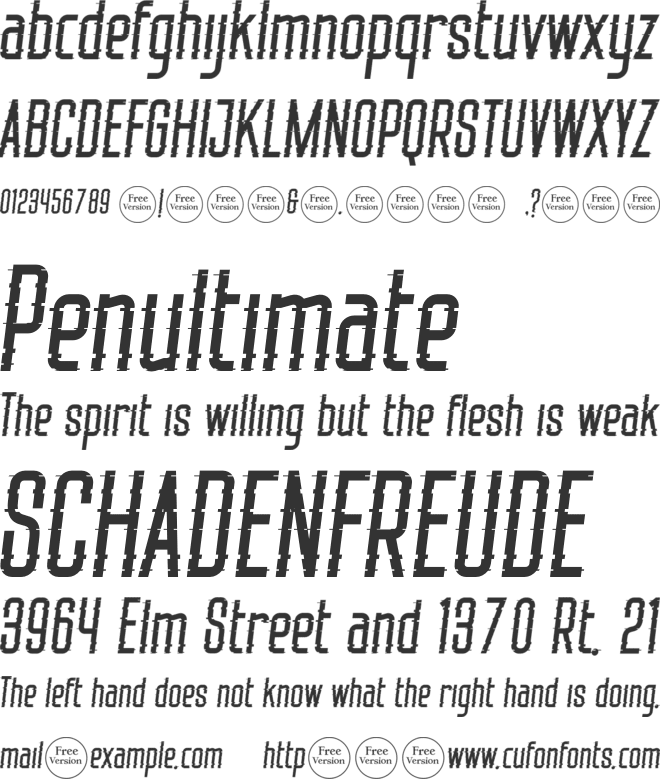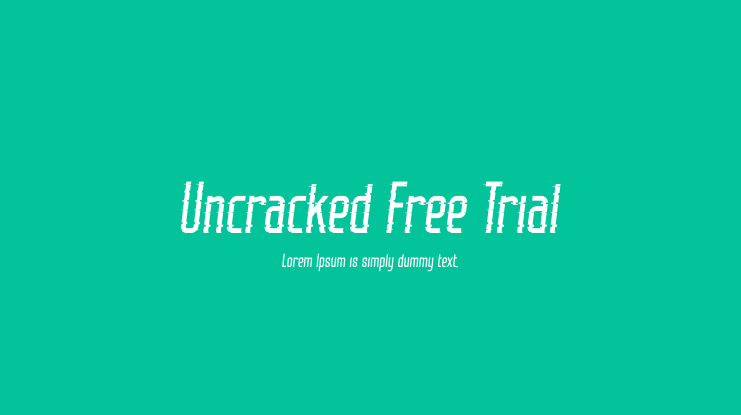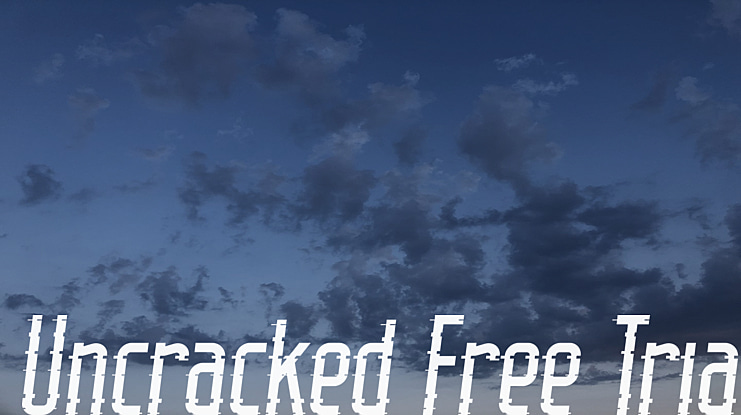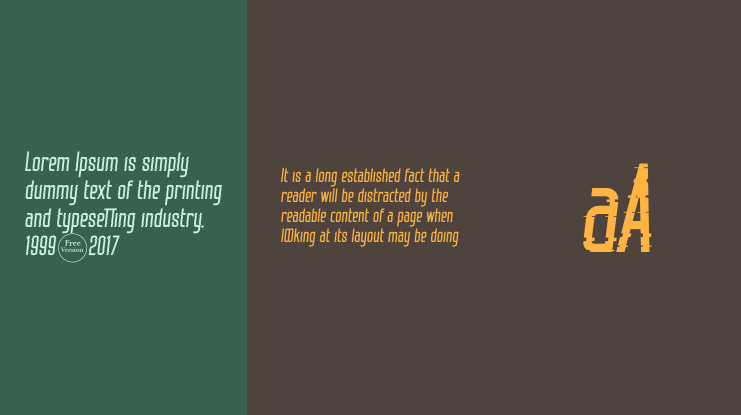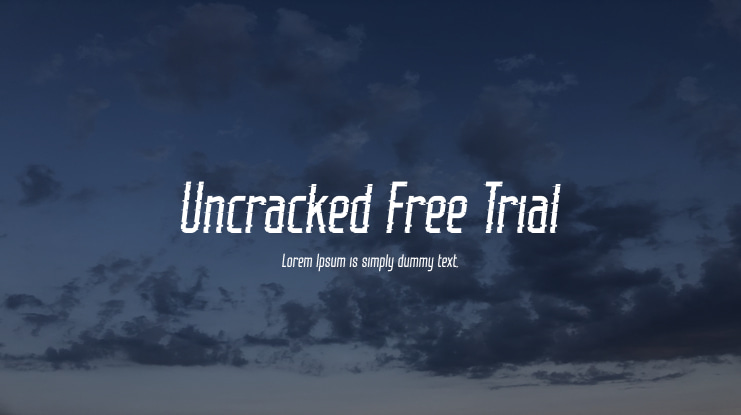
Uncracked Free Trial Font
Uncracked is a detailed glitch style font, ideal for gaming, music and movie posters or other graphics. Full Version Download Here :